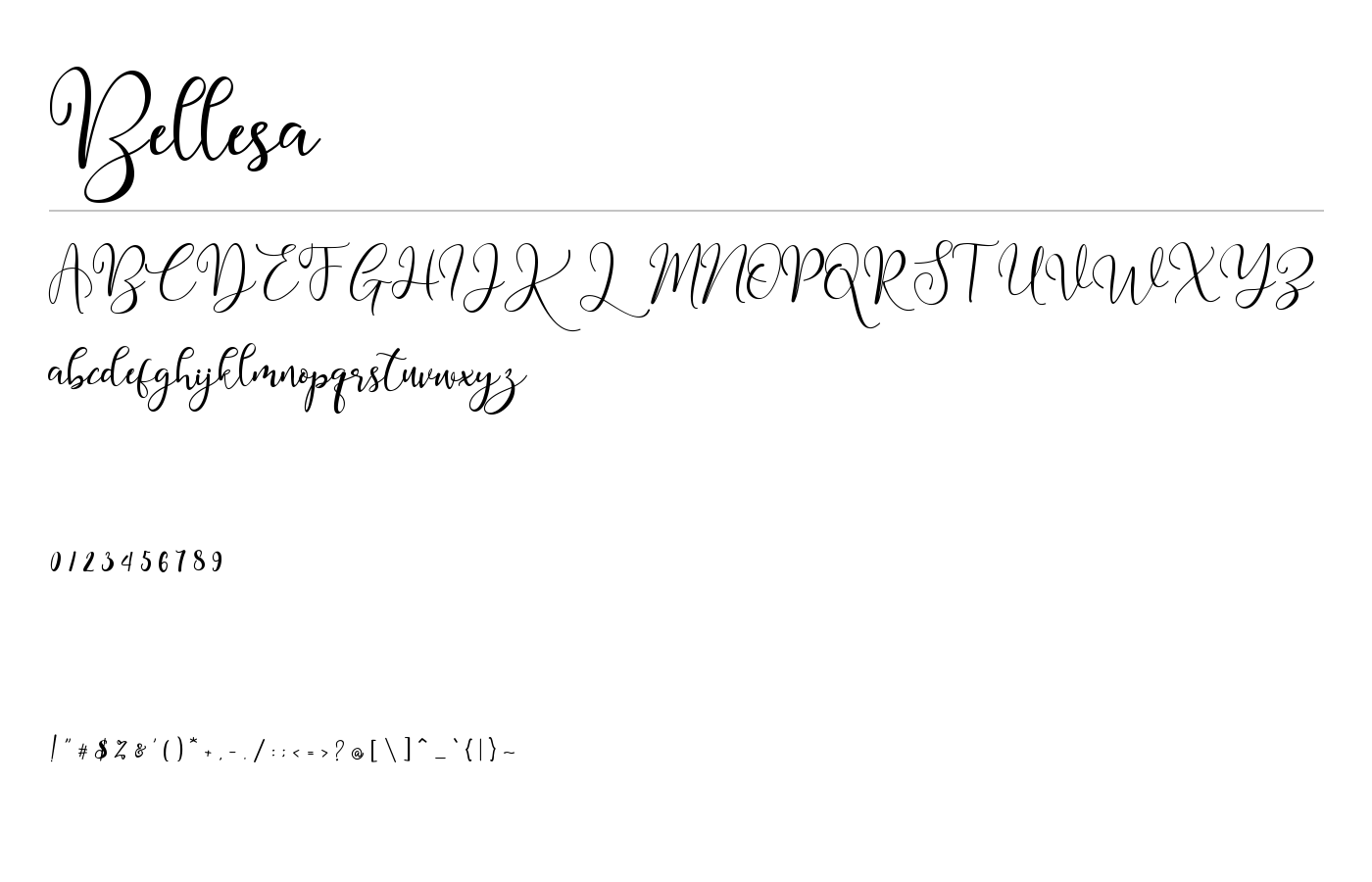
Bellesa is an elegant script font characterized by its flowing, delicate strokes and graceful swashes, giving it a sophisticated and romantic feel. Its light weight and high contrast between thin and thick lines make it ideal for luxury branding, wedding invitations, and feminine design projects that require a stylish, refined touch. The font’s ornate uppercase and smooth lowercase letters create a charming and inviting personality, perfect for headlines and decorative text.
Bellesa Font
About Bellesa Font
| Font family | Bellesa Font |
| Designer | Tiny Hand Letter 2021 |